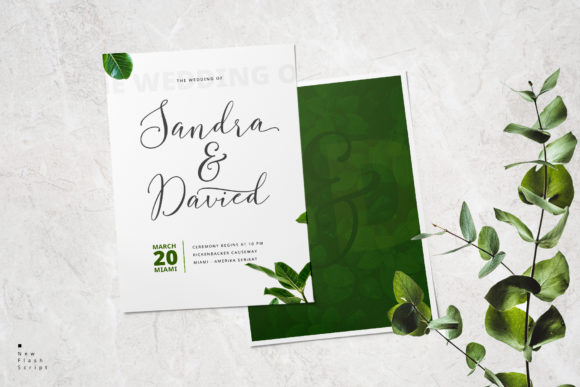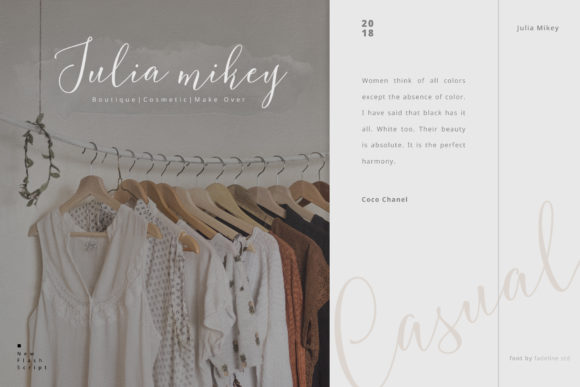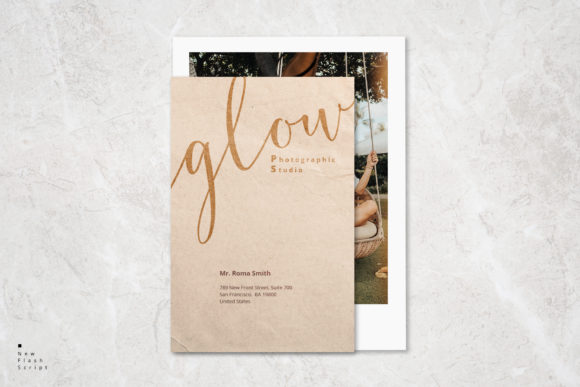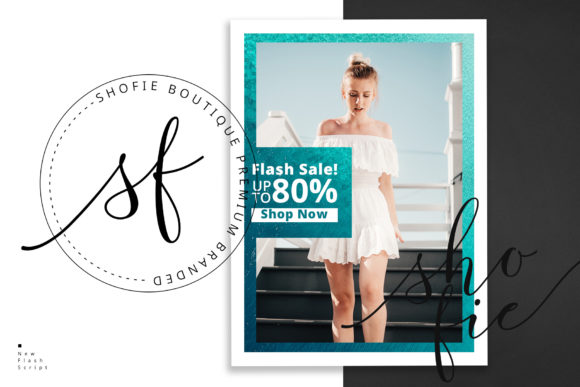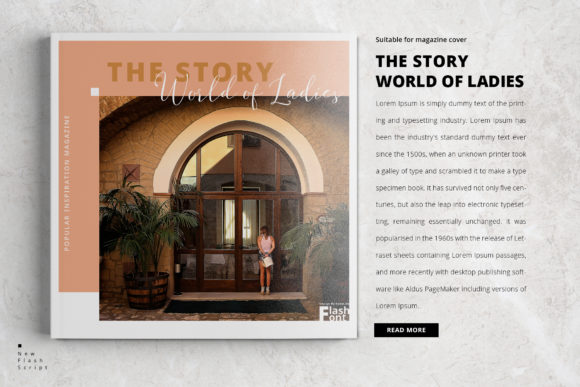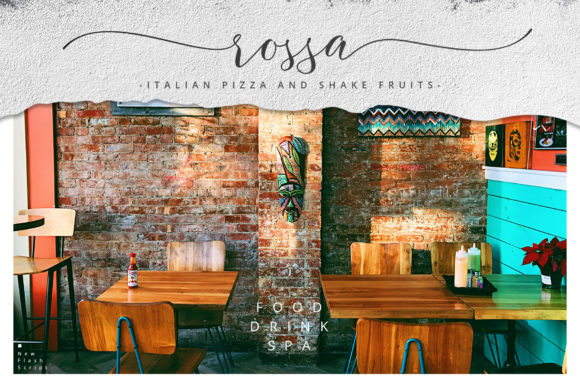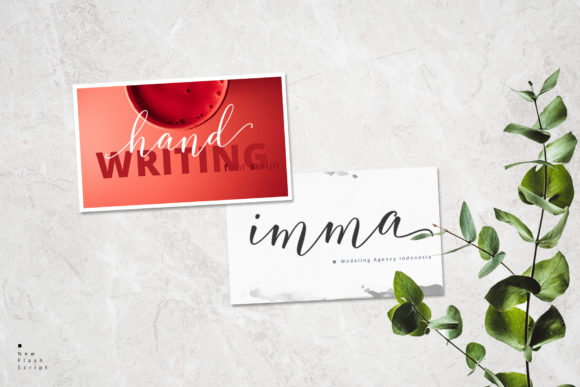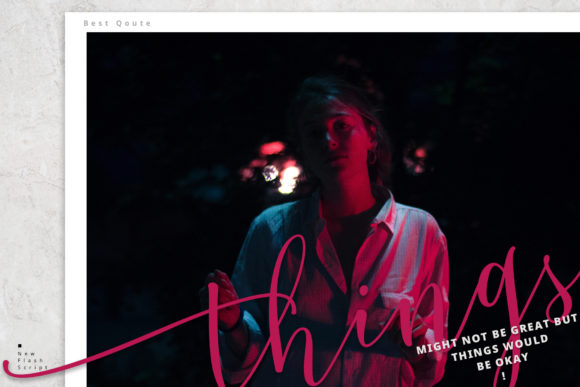
HomeScript FontsFlash Script Font Script Fonts Flash Script Font FacebookXPinterestWhatsApp Flash Script Font Poster 2 Flash Script Font Poster 3 Flash Script Font Poster 4 Flash Script Font Poster 5 Flash Script Font Poster 6 Flash Script Font Poster 7 Flash Script Font Poster 8 Flash Script Font Poster 9 About Flash Script Font Flash is a bold handwritten font with a cool feel. Use it to turn any design project into a true standout! DOWNLOAD NOW People also explored The Eagle Jummiten Font Jasmine Font George Stayolla Font Font Red Bella Canvas 3001 T Shirt Flat Lay Athea Font Monday Delight Font Always Easter Font Blue Butterfly Font 279 0 TagsFlash Script Font Previous articleFloweress FontNext articleKhinta Script Font LEAVE A REPLY Cancel reply Comment: Please enter your comment! Name:* Please enter your name here Email:* You have entered an incorrect email address! Please enter your email address here Website: Save my name, email, and website in this browser for the next time I comment. Personal Use Free Gagalin Personal Use Free Read more about this font Ayam Bakar Personal Use Free Read more about this font BD Algebra Personal Use Free Read more about this font Alligator Font Personal Use Free Read more about this font BLOG To increase your work productivity, choose the most readable fonts. In today's fast-paced work environment, where digital communication and information consumption are integral to our daily routines, the choice of fonts can significantly impact... Free Fonts Risk: Why Free Fonts Can Be Dangerous for Designers Modern Sans-Serif Fonts That Brands Love in 2025 Transform Your Website: Elevate Your Typography with 7 Best Web Font Generators